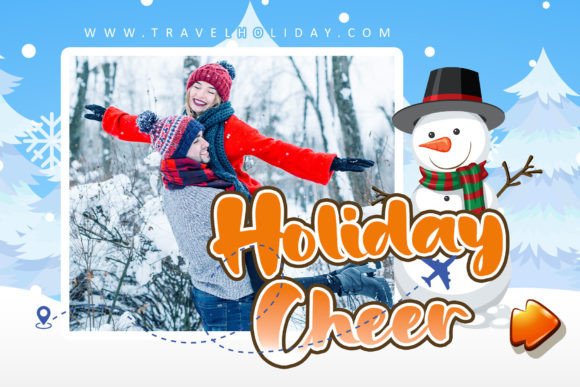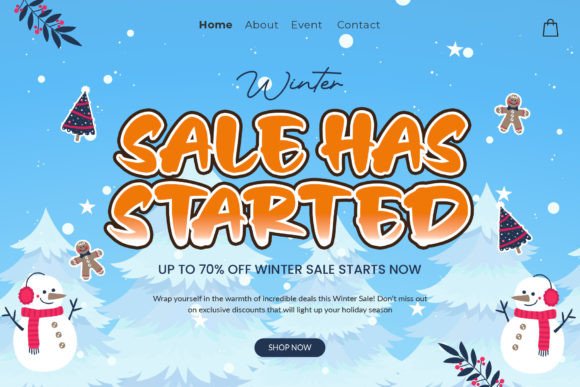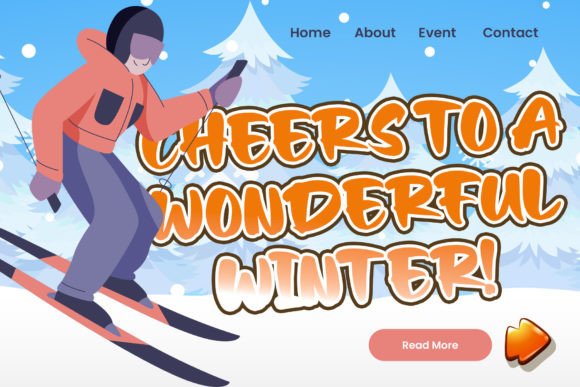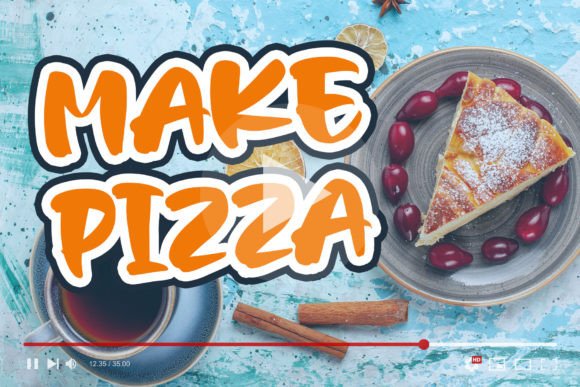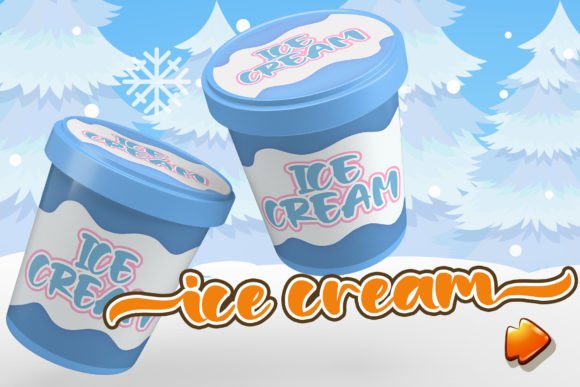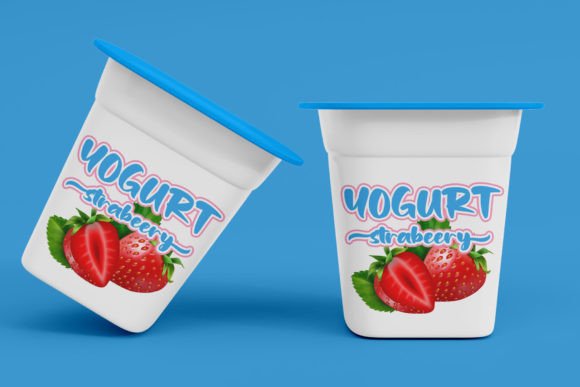
Introduction to Jolly Jingle Font Font
Fonts play a crucial role in design, and the Jolly Jingle Font font is a typeface that brings both character and versatility to any project. Whether you’re working on a branding project, a website, or a print design, the Jolly Jingle Font font offers a unique style that can elevate your work.
Introducing Jolly Jingle, a bold handwritten font that captures the festive spirit of Christmas with a playful, energetic twist.
Designed to bring joy and vibrancy to your holiday projects, this font boasts bold strokes and lively letterforms that are perfect for adding a whimsical touch to any creation Whether youβre designing for game apps, posters, logos, or packaging, Jolly Jingle infuses your work with cheerful charm and merry vibes.
Key Features of Jolly Jingle Font Font
Why Choose Jolly Jingle Font Font?
The Jolly Jingle Font font is more than just a typeface β it’s a design tool that helps you communicate your message with style and clarity. Its unique character set and versatile design make it suitable for a wide range of applications, from elegant invitations to bold headlines.
With its carefully crafted letterforms and balanced proportions, the Jolly Jingle Font font ensures readability and visual appeal across all mediums.
What makes Jolly Jingle Font font special?
The Jolly Jingle Font font stands out with its unique design, exceptional readability, and versatility across various design applications.